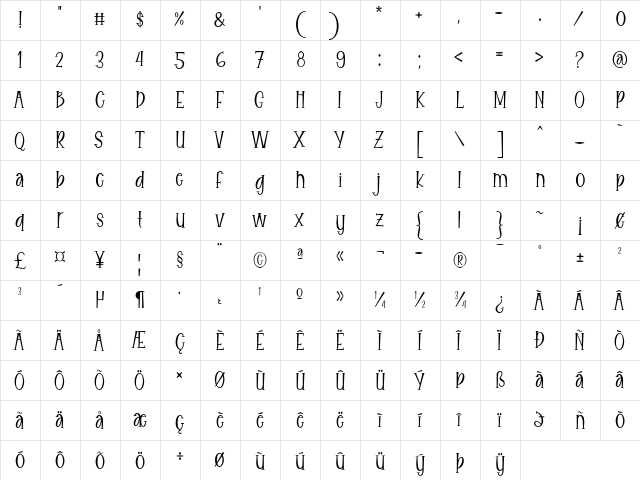
Eitaro Regular
| Foundry | 7NTypes |
| Designer | Keithzo; Situjuh Nazara |
Design Context for Eitaro Typeface
Eitaro is a composed and adaptable typeface that performs quietly and consistently across a wide range of design contexts.